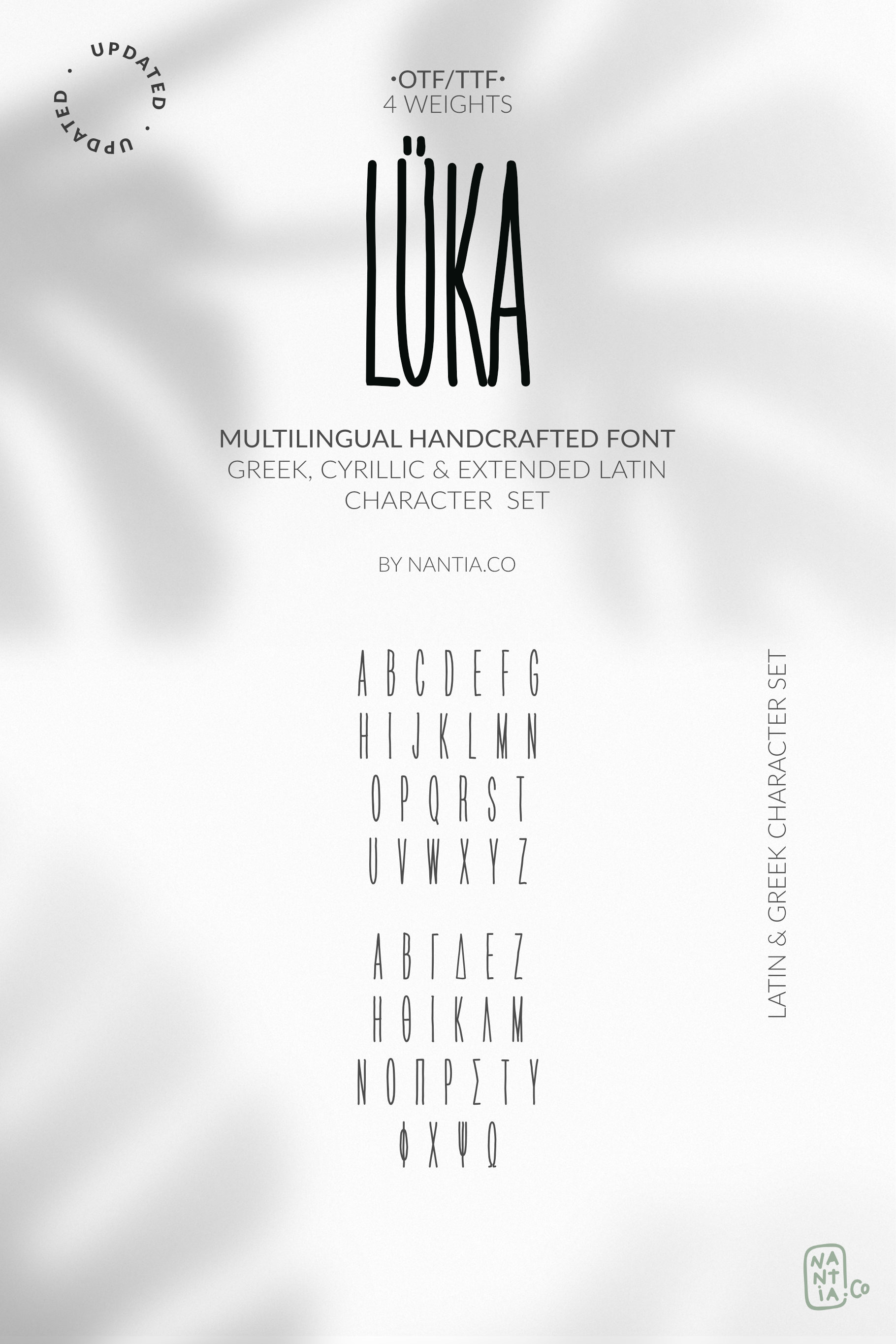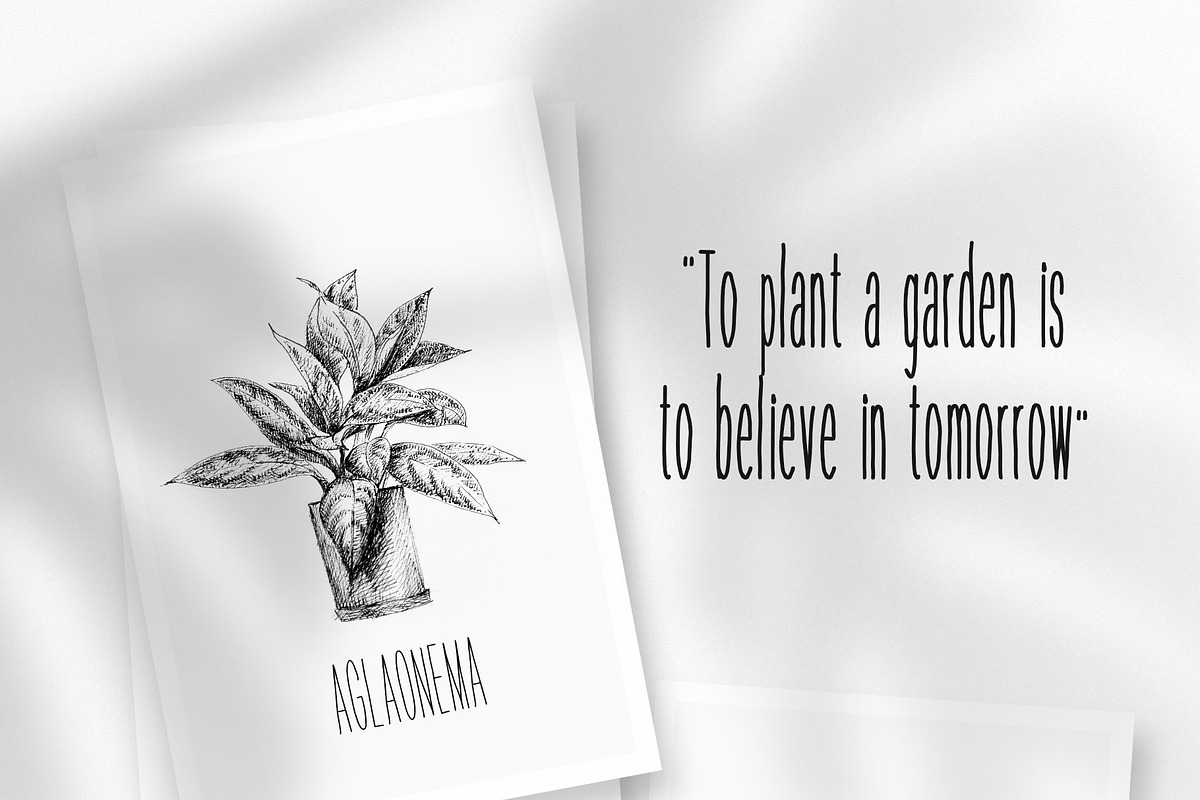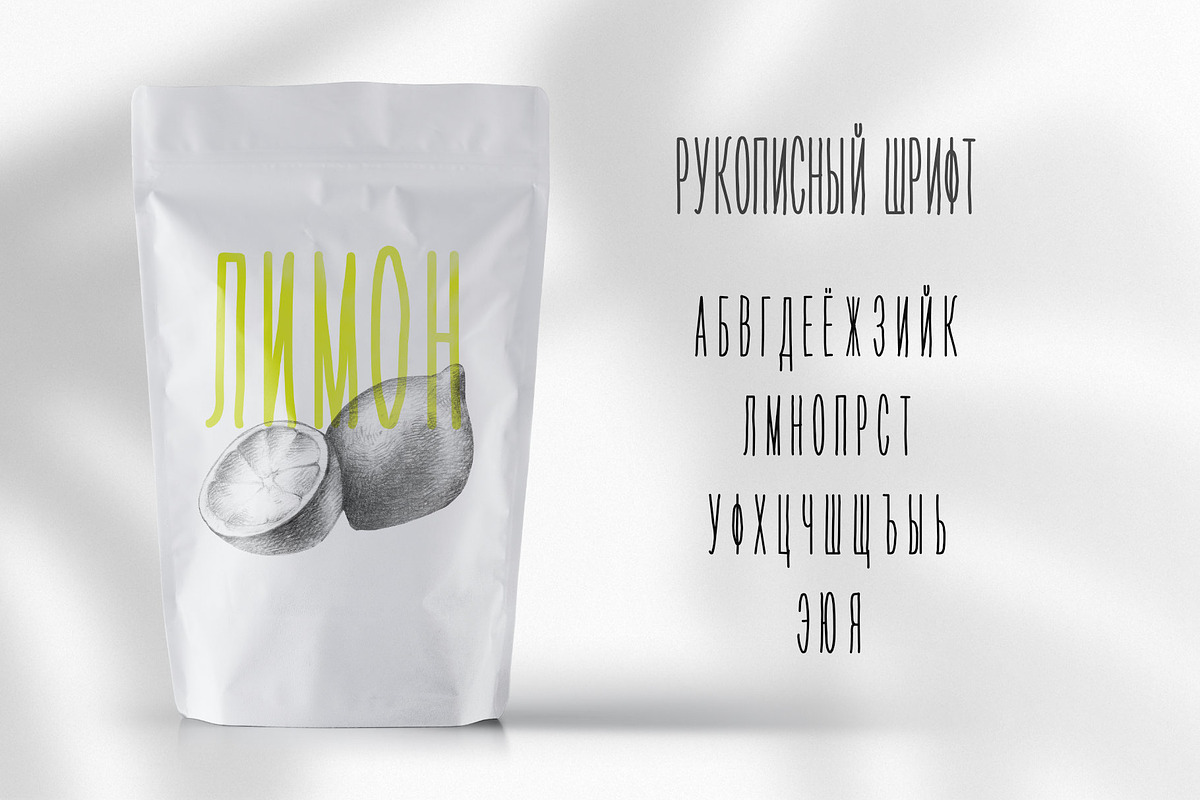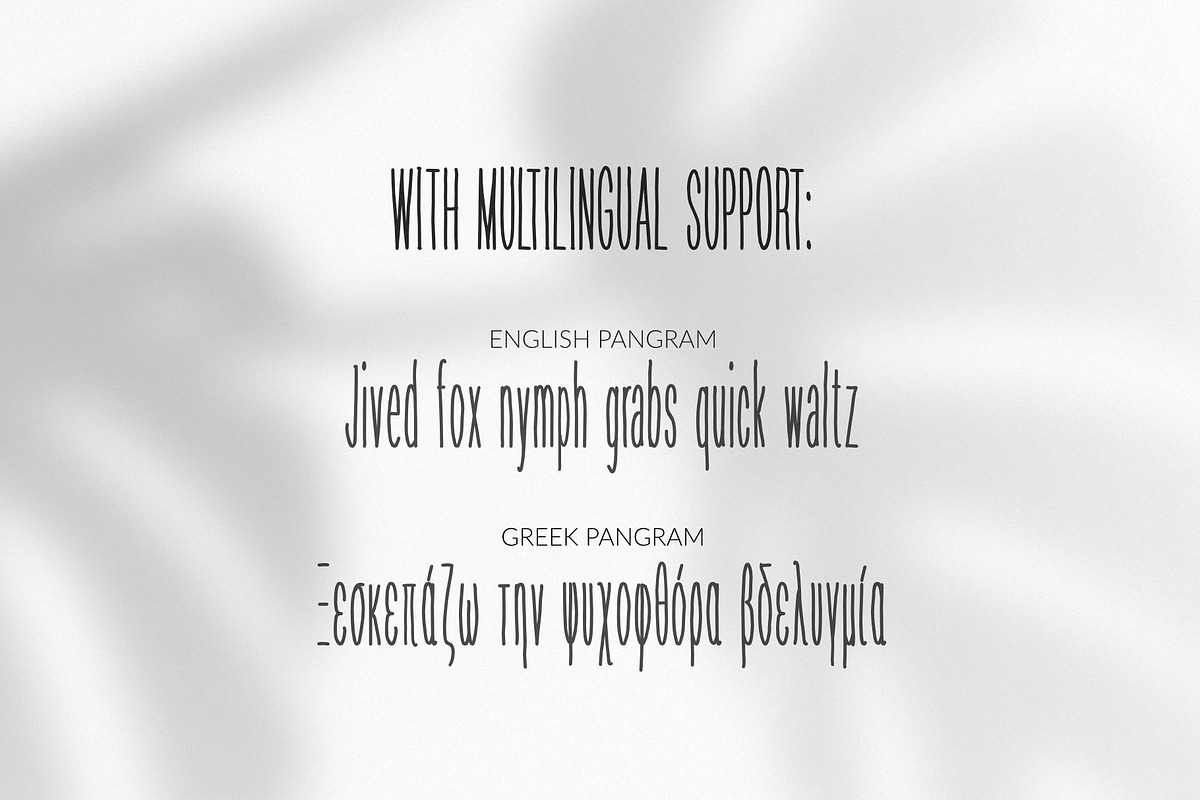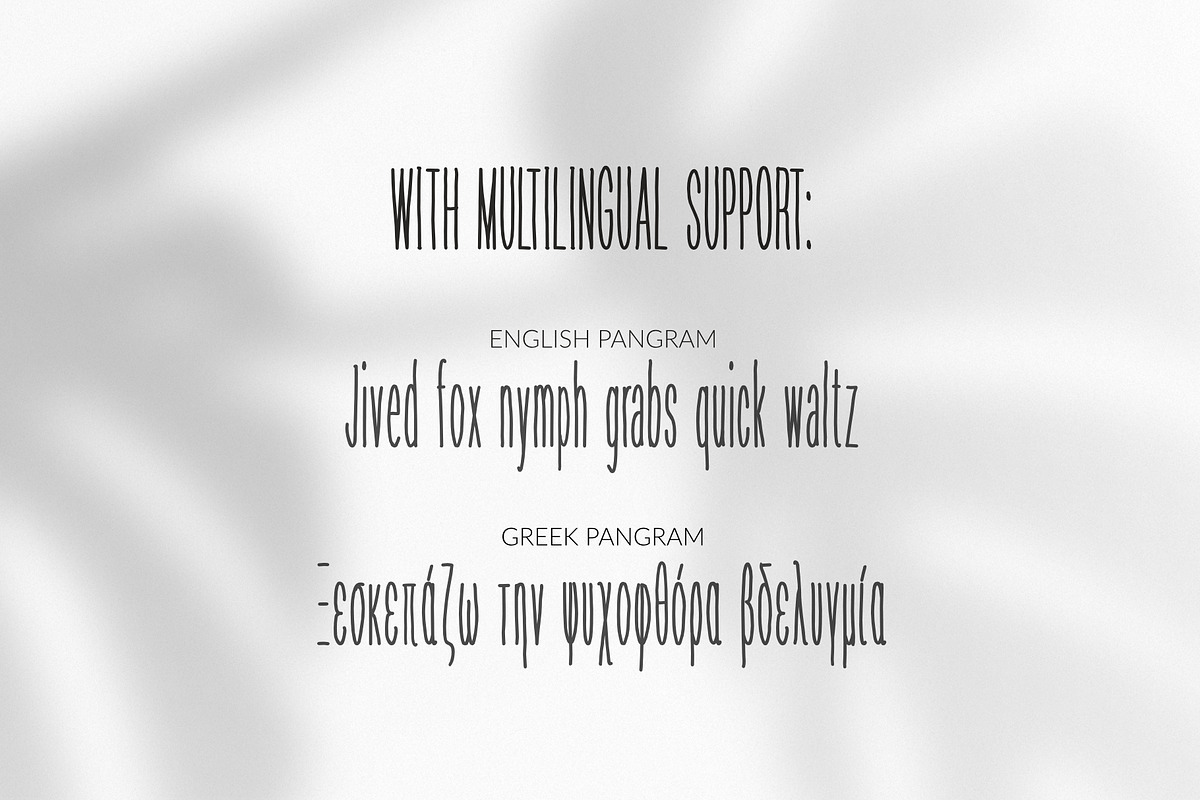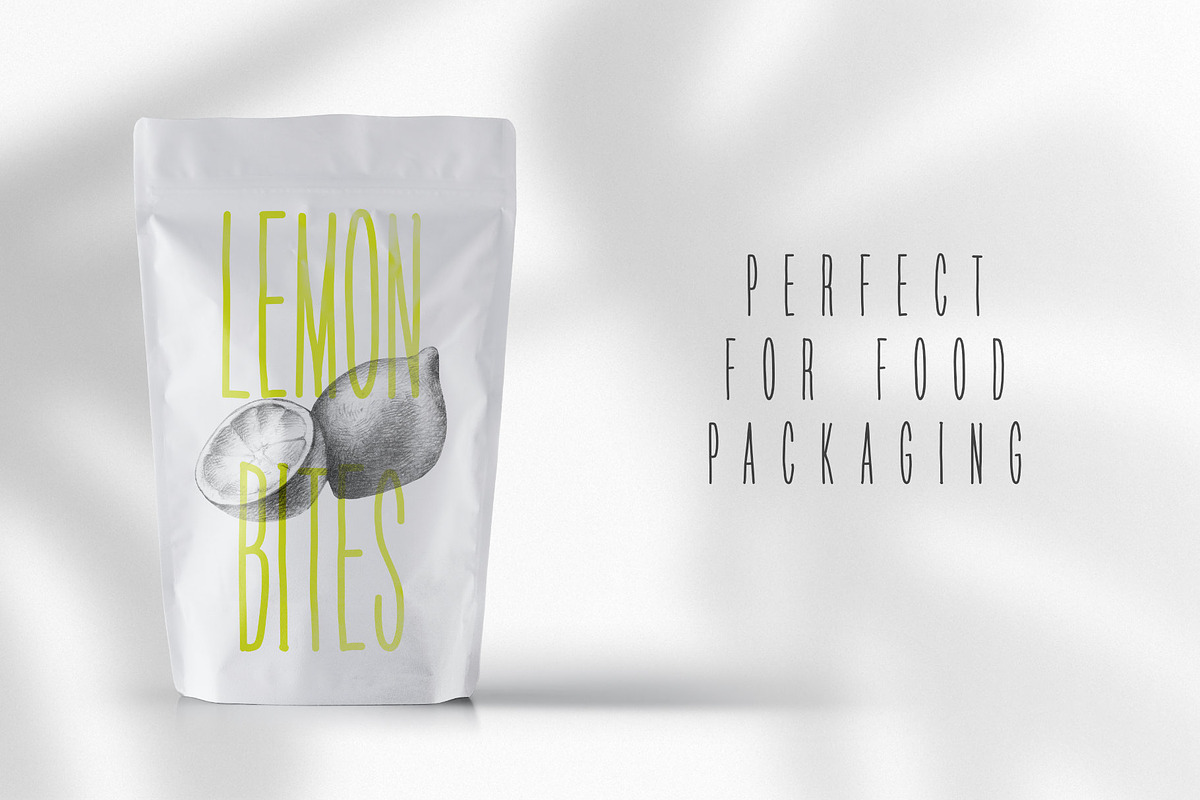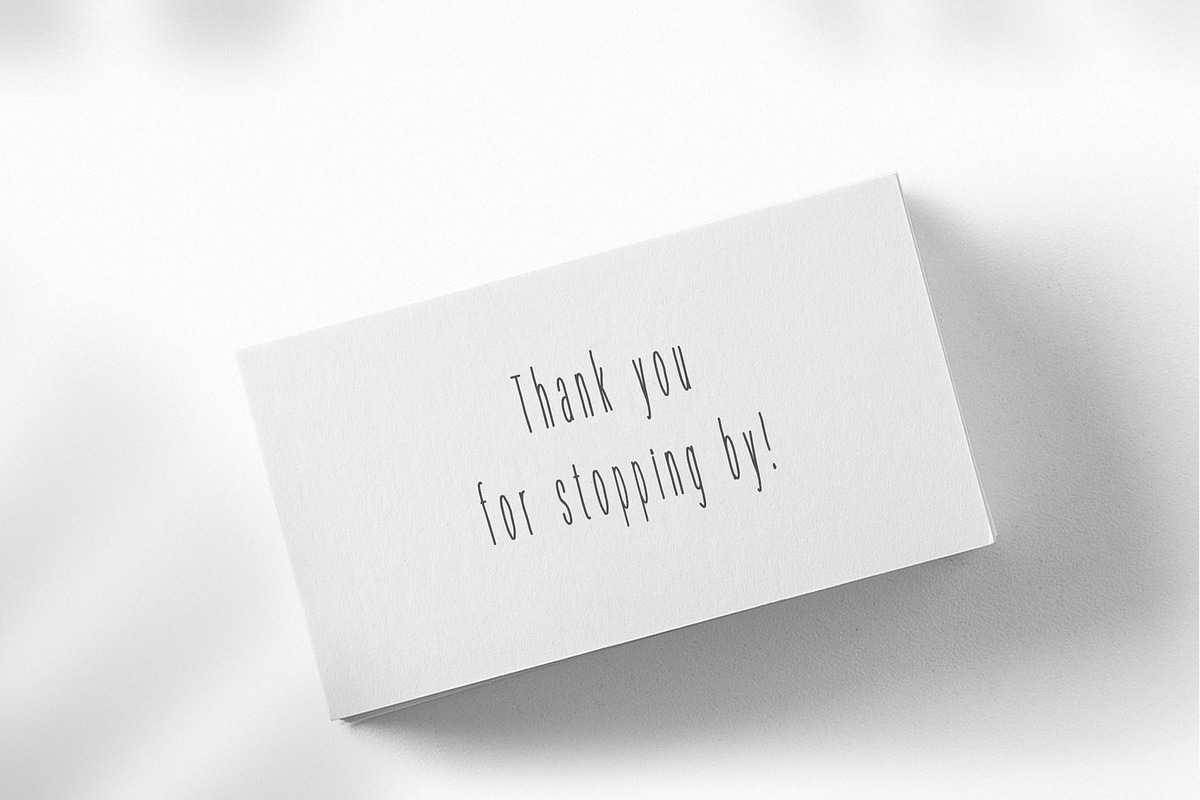
HandWritten Greek Cyrillic Font
HandWritten Multilingual Font LÜKA
HandWritten Multilingual Font LÜKA , is an elegant display font, with Greek, Cyrillic and Latin character set. It is a unique font that has a great variety of applications with multilingual support. A thin, elegant yet crafty looking typeface. Of course, the wide range of language support of the font makes it ideal for international food packaging. You can use it on organic packaging design, for crafts and wedding invitations.
Luka-Pro Font is a hand drawn, decorative, san serif font in three weights: thin, normal and heavy.
In an nutshell
Luka-Pro Font is a hand-drawn, decorative, san serif font in 4 weights including:
- Extended Latin character set,
- Greek character set,
- Cyrillic character set,
- punctuation marks,
- diacritics and
- numbers.
Supports the following languages:
Albanian, Basque, Bosnian, Breton, Catalan, Chamorro, Chichewa_nyanja, Croatian, Cyrillic, Czech, Danish, Dutch, English, Estonian, Faroese, Finnish, French, Frisian, Galician, German, Greek, Hungarian, Icelandic, Italian, Latvian, Lithuanian, Malagasy, Maltese, Norwegian, Polish, Portuguese, Romanian, Serbian, Slovak, Slovenian, Spanish, Swedish, Turkish, Welsh
HandWritten Multilingual Font LÜKA is a Greek font and an Extended Latin Font and that makes it a multilingual font. You can check that on the test drive below.